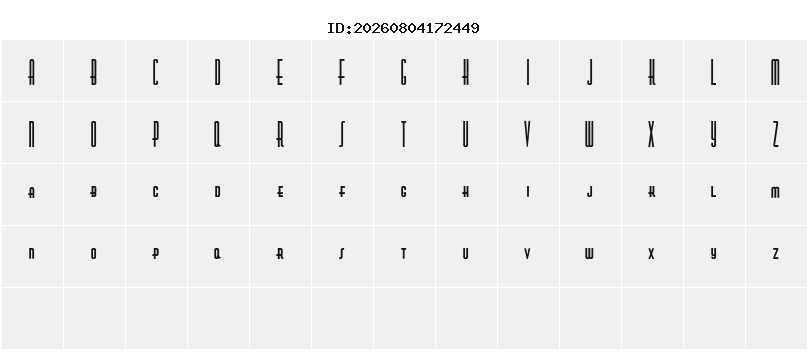
Nickodemus-Extremus.ttf is a modern, elegant sans-serif font designed for ultimate readability and visual harmony. Perfect for branding, headlines, web design, and print materials.